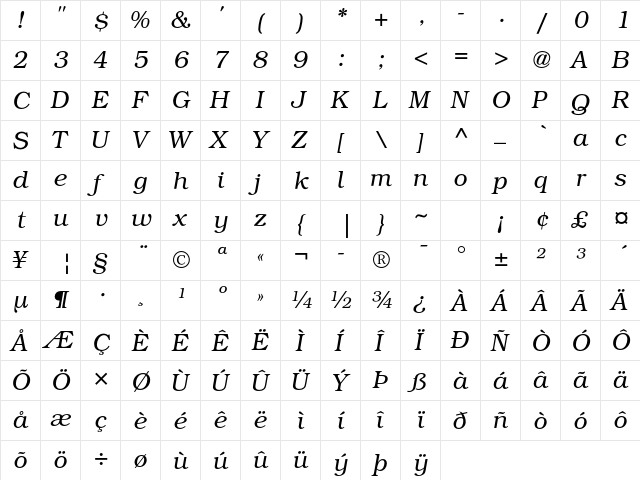
Bookman ITC Std Light Italic Font Preview
| Designer | Edward Benguiat |
Design Context for Bookman ITC Std Typeface
Bookman ITC Std takes a measured approach to typography — its balanced proportions and neutral character make it a reliable workhorse for both digital and print work. The slanted form adds forward momentum and visual energy. Its slender proportions lend an understated elegance to any composition.
Pro Tip: Try Bookman ITC Std for annotation and caption copy alongside an upright companion — the contrast in angle creates a dynamic but ordered typographic system.